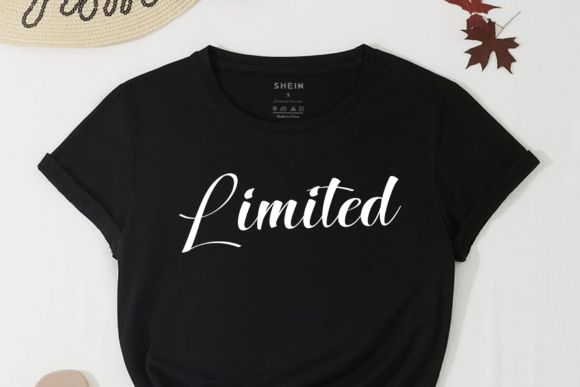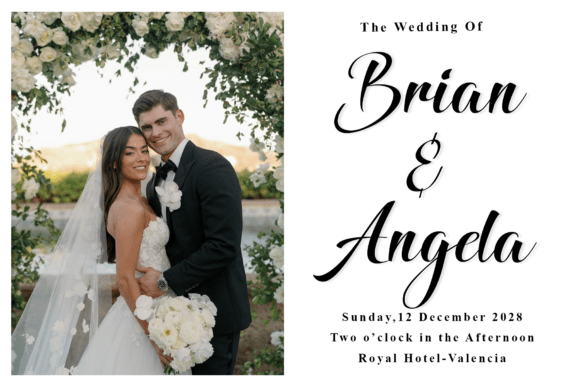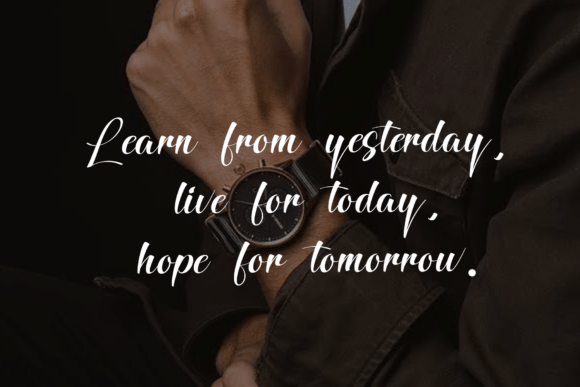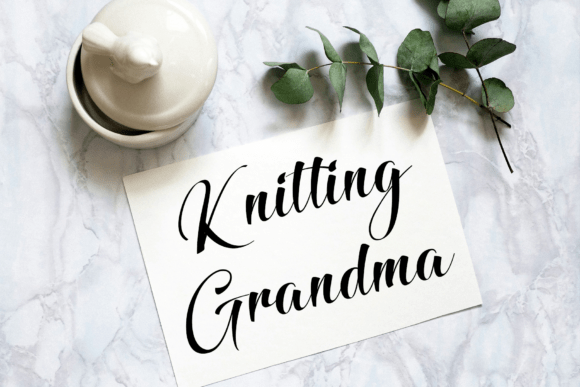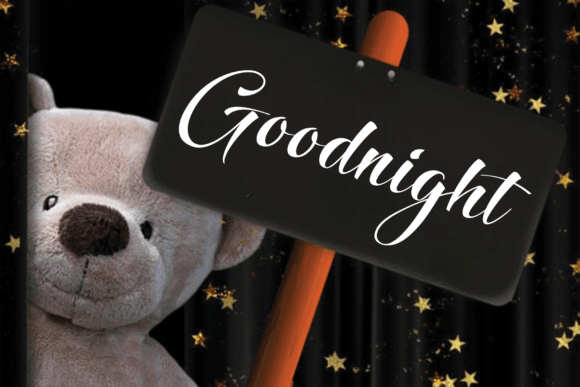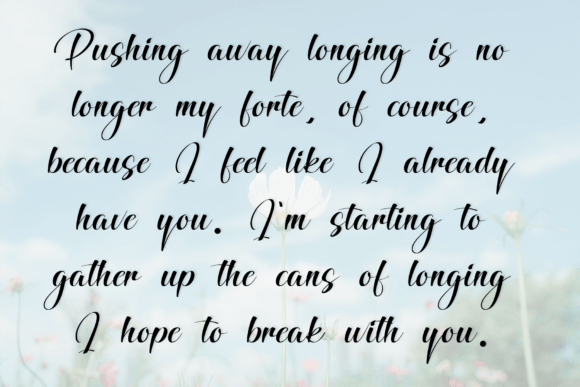
The Bluemode Font: Elevate Your Designs with Sophisticated Flair
I’ll never forget the time I was working on a social media campaign for a fashion brand, and I just couldn’t find the right font to match their upscale yet playful vibe. The client wanted something that felt luxurious, yet approachable – and I was determined to deliver. That’s when I stumbled upon Bluemode, a contemporary script font that instantly caught my eye. In this article, I’ll share my experience with Bluemode, and explore how you can use it to add a touch of sophistication to your designs.
An Honest Review of Bluemode
So, what makes Bluemode so special? Here are some things I love about this beautiful font:
- ✨ Sophisticated yet playful: Bluemode strikes the perfect balance between elegance and whimsy, making it perfect for projects that need a touch of luxury.
- ✅ Fluid handwriting feel: The font’s fluid strokes and subtle variations give it a genuinely handwritten feel that’s hard to achieve with digital fonts.
- ✅ Versatile: Bluemode is suitable for a wide range of projects, from social media quotes to casual branding and more.
Of course, no font is perfect, and Bluemode has a few minor quirks:
- 🤔 Limited use in very formal contexts: While Bluemode is sophisticated, it’s still a script font – and may not be suitable for very formal or traditional projects.
- ⚠️ Some glyphs may require adjustment: Depending on your design, you may need to adjust certain glyphs to get the perfect fit.
The Story Behind Bluemode
Bluemode was designed with the intention of capturing the essence of fluid handwriting, while still feeling sophisticated and elegant. The designer aimed to create a font that would be perfect for creative projects, social media posts, and casual branding – something that would add a touch of personality to any design. Although the designer’s background is unclear, it’s evident that they drew inspiration from the world of high-end fashion and luxury branding.
- Q: Is Bluemode suitable for body text?
- A: While Bluemode is beautiful, it’s best used for headlines or short paragraphs. Its fluid strokes and script style can be challenging to read in long blocks of text.
- Q: Does Bluemode support OpenType features?
- A: Yes, Bluemode supports OpenType features like ligatures, stylistic alternates, and swashes. Experiment with these features to add more personality to your text.
- Q: Is Bluemode available in multiple languages?
- A: Bluemode may not support all languages, but it does include a range of glyphs and characters to support many languages. Check the font documentation for specific details.